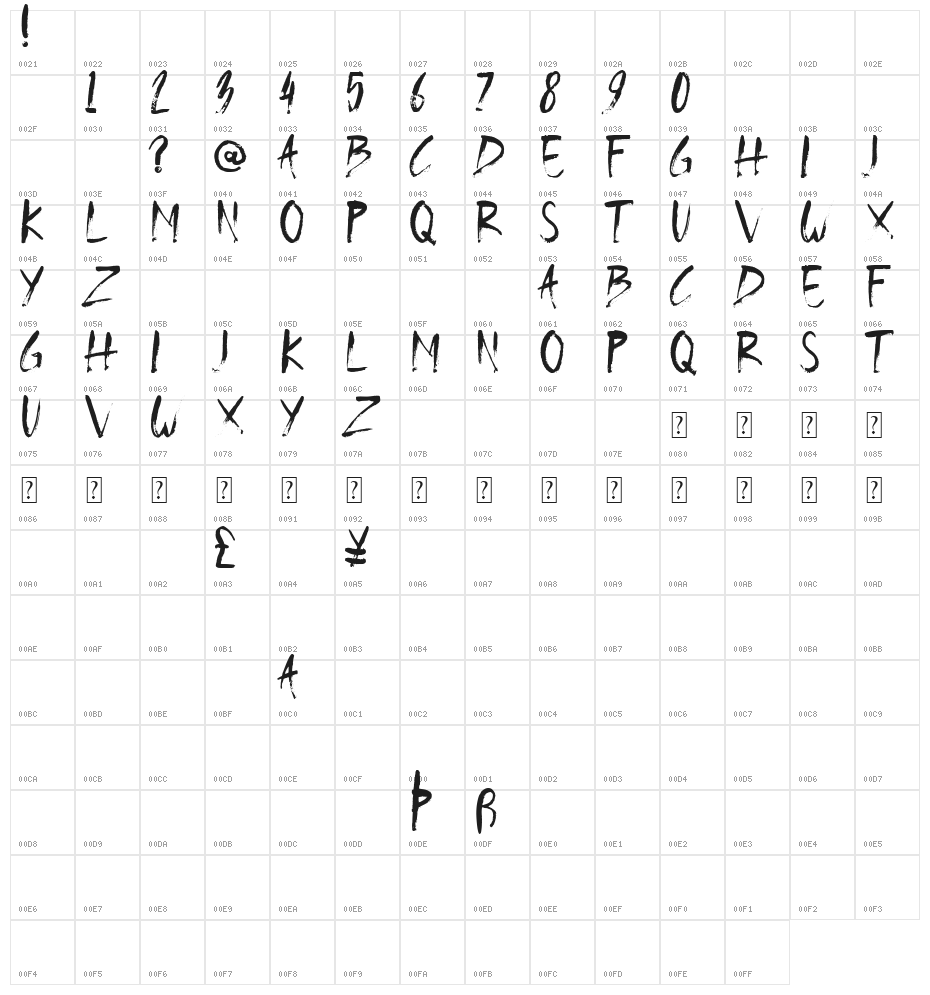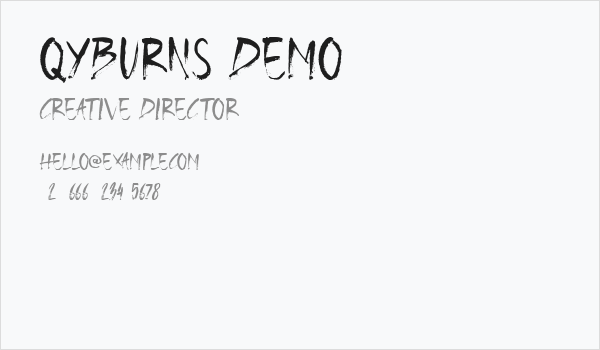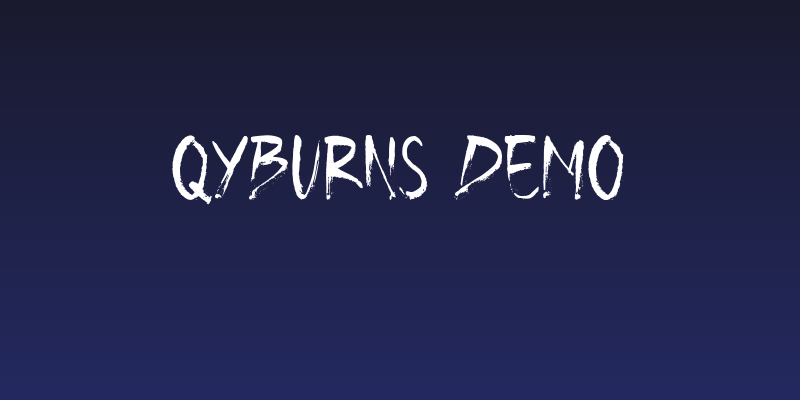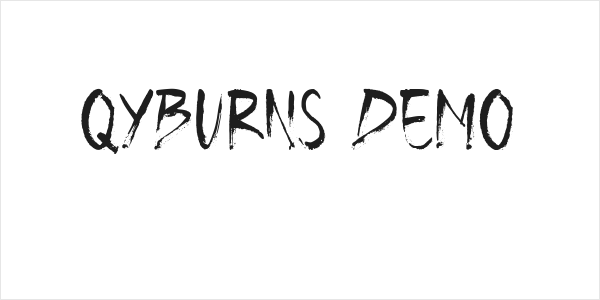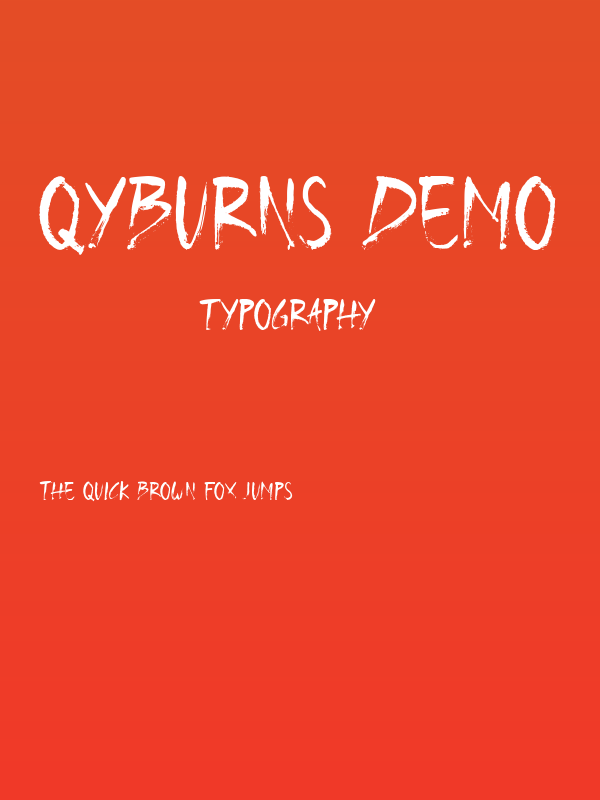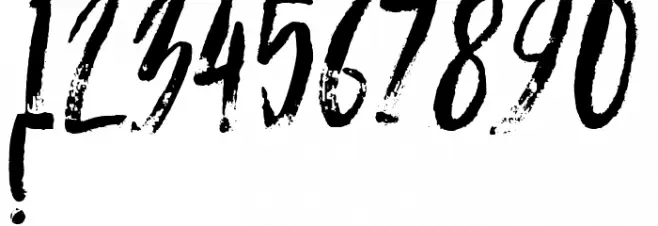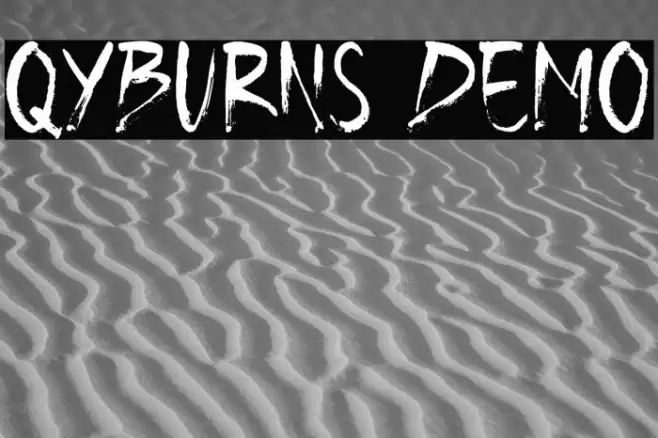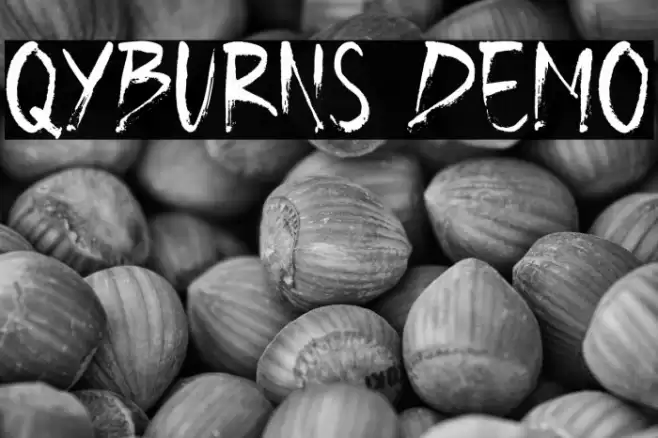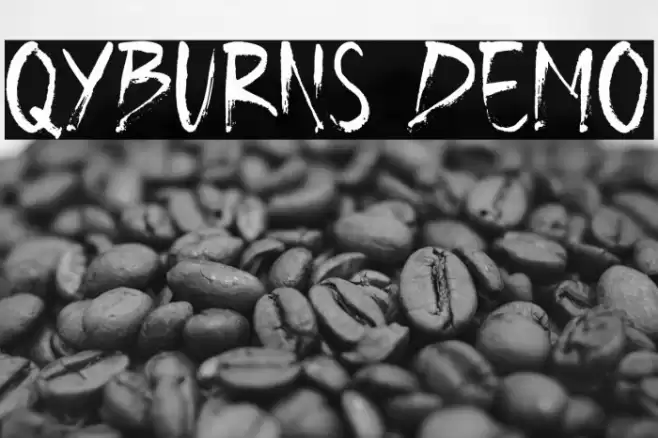
Qyburns Demo Font
This font features a bold, expressive style with a hand-painted appearance. The strokes are uneven and textured, giving it a raw, artistic feel. The uppercase letters are tall and slightly narrow, while the lowercase letters maintain a consistent height, adding to the cohesive look. Numbers and special characters follow the same dynamic style, making them stand out with their bold presence. The overall design is energetic and impactful, suitable for projects that require a strong visual statement.
| Proposed Projects | Ideal for posters, album covers, branding, and any creative projects needing a bold, artistic touch. |